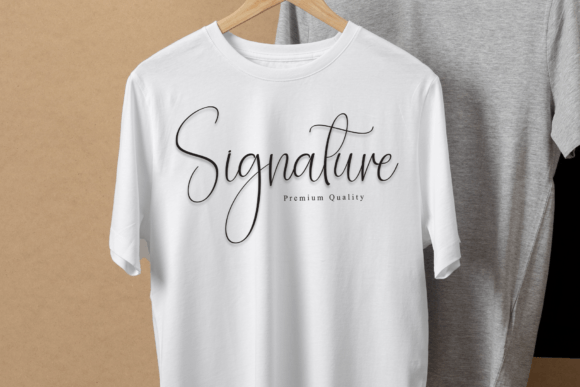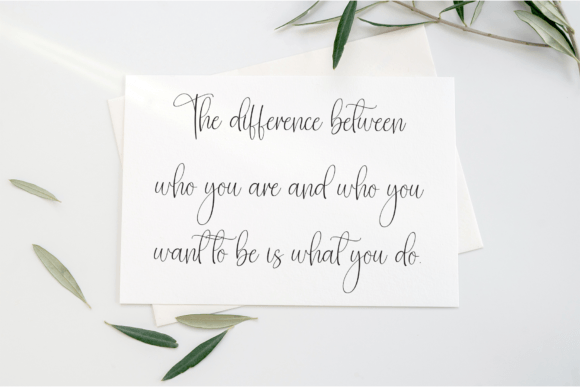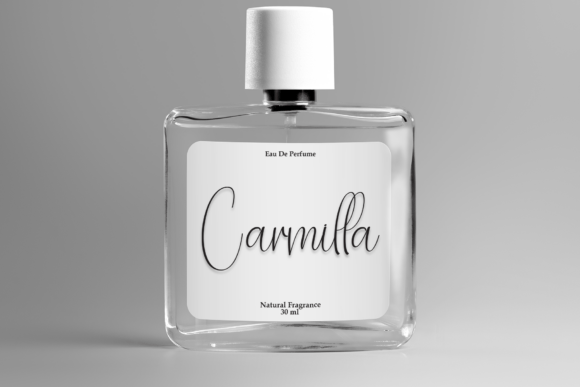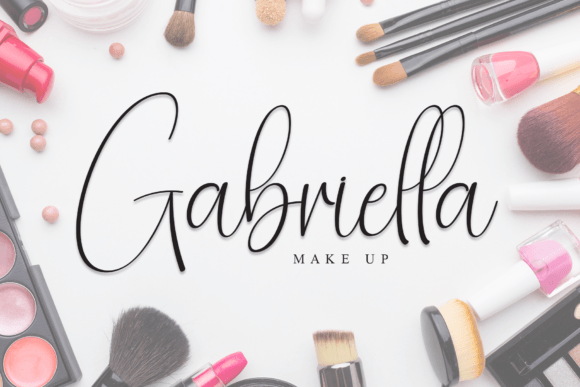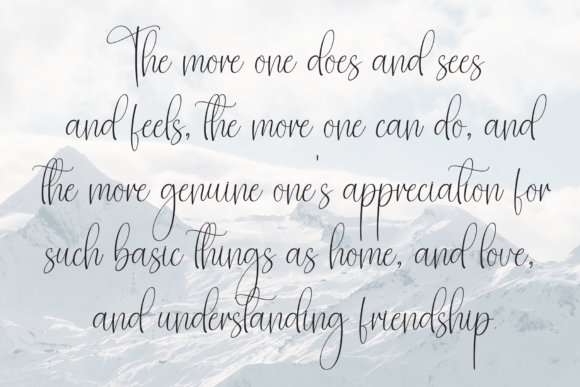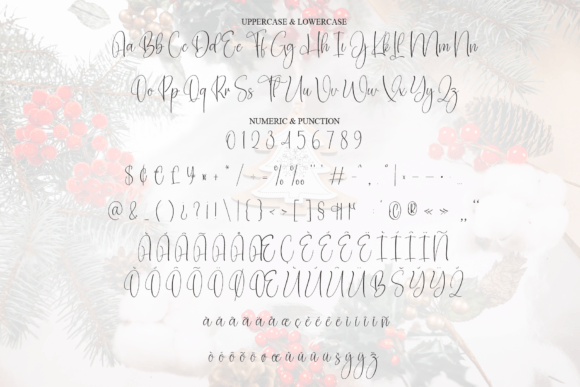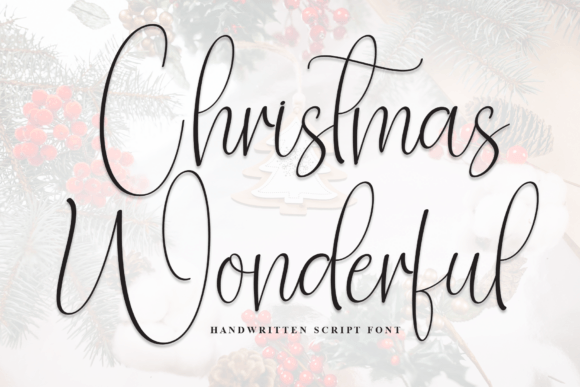
Christmas Wonderful Font: Add a Touch of Elegance to Your Holiday Designs
As the holiday season approaches, designers and crafters are on the lookout for the perfect font to add a touch of magic to their Christmas creations. Look no further than the “Christmas Wonderful” font, a delicate, thin handwritten font that captures the warmth and joy of the holiday season.
A Font that Embodies the Spirit of Christmas
“Christmas Wonderful” is a font that embodies the spirit of Christmas with its elegant style, soft curves, and light strokes. This beautiful font is perfect for creating festive cards, invitations, and decorations that will make your holiday designs stand out. Its delicate and thin strokes evoke a cozy, cheerful feeling, inviting everyone to celebrate the magic of Christmas.
Perfect for Festive Designs
Whether you’re a designer, crafter, or DIY enthusiast, the “Christmas Wonderful” font is a must-have for your holiday projects. Its elegant style adds a personal touch, making it perfect for:
- Festive cards: Create beautiful Christmas cards that will make your loved ones feel special.
- Invitations: Design elegant invitations for your holiday parties, gatherings, or events.
Key Features of the Christmas Wonderful Font
The “Christmas Wonderful” font has several key features that make it perfect for your holiday designs:
- Delicate and thin strokes: The font’s soft curves and light strokes evoke a cozy, cheerful feeling.
- Elegant style: The font’s elegant style adds a personal touch to your designs.
- Handwritten: The font’s handwritten style gives it a personal and unique touch.
- Perfect for digital and print designs: The font is suitable for both digital and print designs, making it versatile for various applications.
Tips for Using the Christmas Wonderful Font
Here are some tips for using the “Christmas Wonderful” font in your holiday designs:
- Pair it with other fonts: Pair the “Christmas Wonderful” font with other complementary fonts to create a unique and visually appealing design.
- Use it for headings and titles: Use the font for headings and titles to add a touch of elegance to your designs.
- Experiment with colors: Experiment with different colors to find the perfect combination that matches your holiday theme.
The “Christmas Wonderful” font is a beautiful and elegant font that captures the warmth and joy of the holiday season. Its delicate and thin strokes, elegant style, and handwritten touch make it perfect for festive cards, invitations, and decorations. Whether you’re a designer, crafter, or DIY enthusiast, this font is a must-have for your holiday projects. So, download the “Christmas Wonderful” font today and add a touch of magic to your holiday designs!